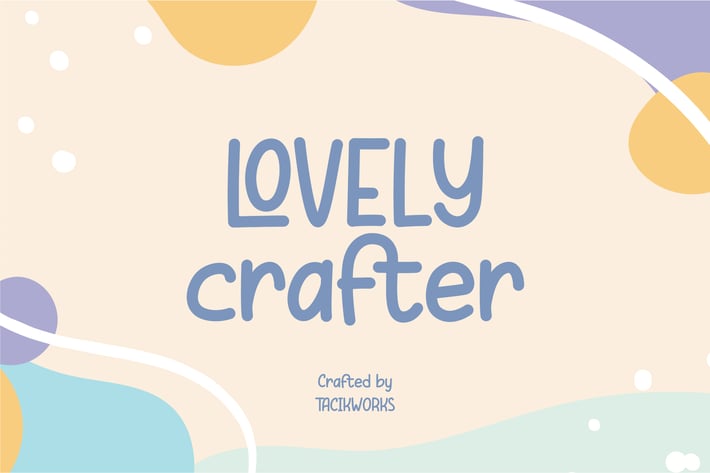
Lovely Crafter - Handwriting Font
Lovely Crafter font is inspired by writing made using a marker pen, showing a simple line shape so as to create a simple font. This font has approximately 279 glyph characters including uppercase, lowercase, discretionary ligatures and standard ligatures alternatives. It is suitable for creating vintage designs such as posters, merchandise, clothing, brochures, business cards and others.